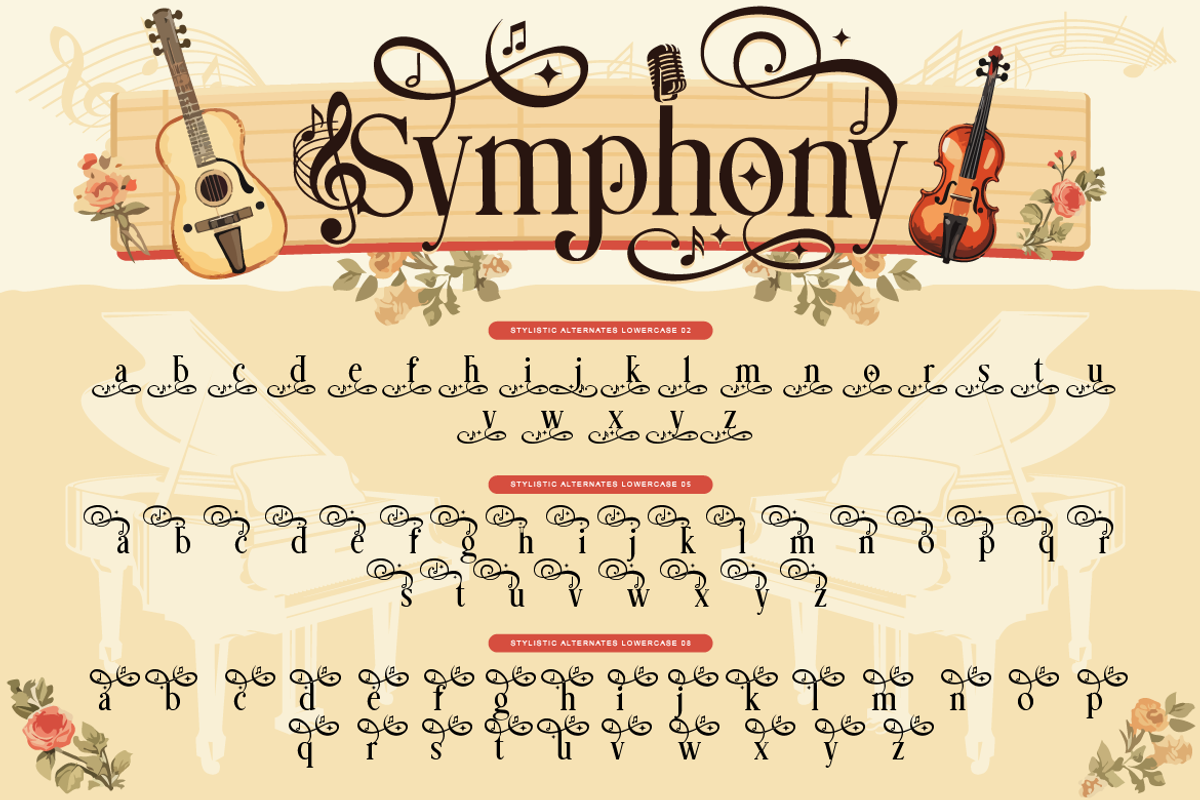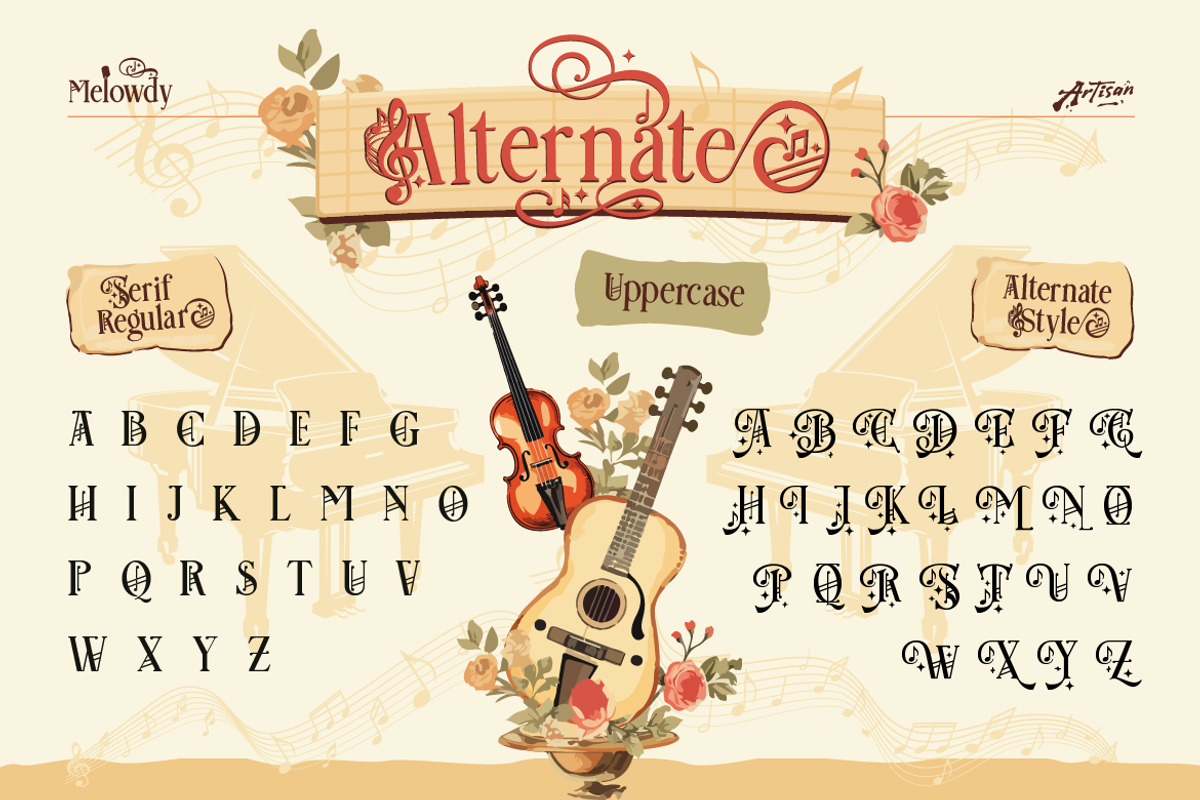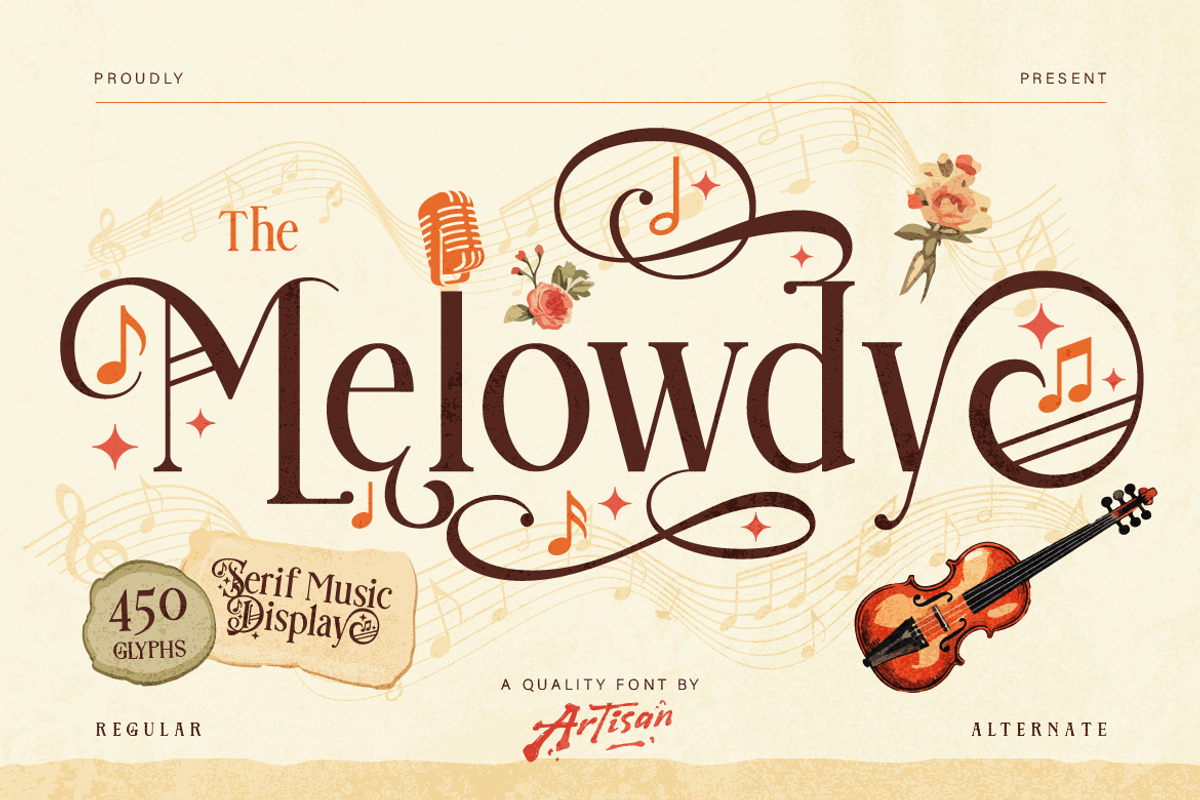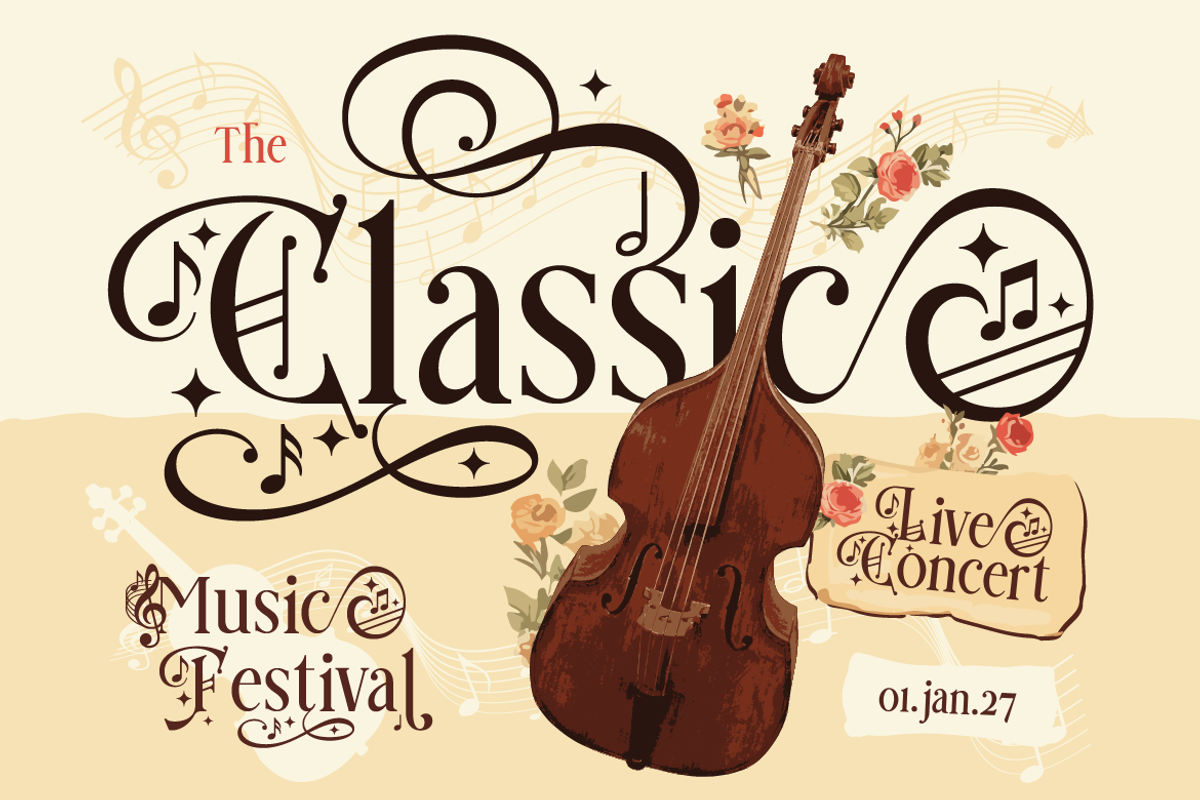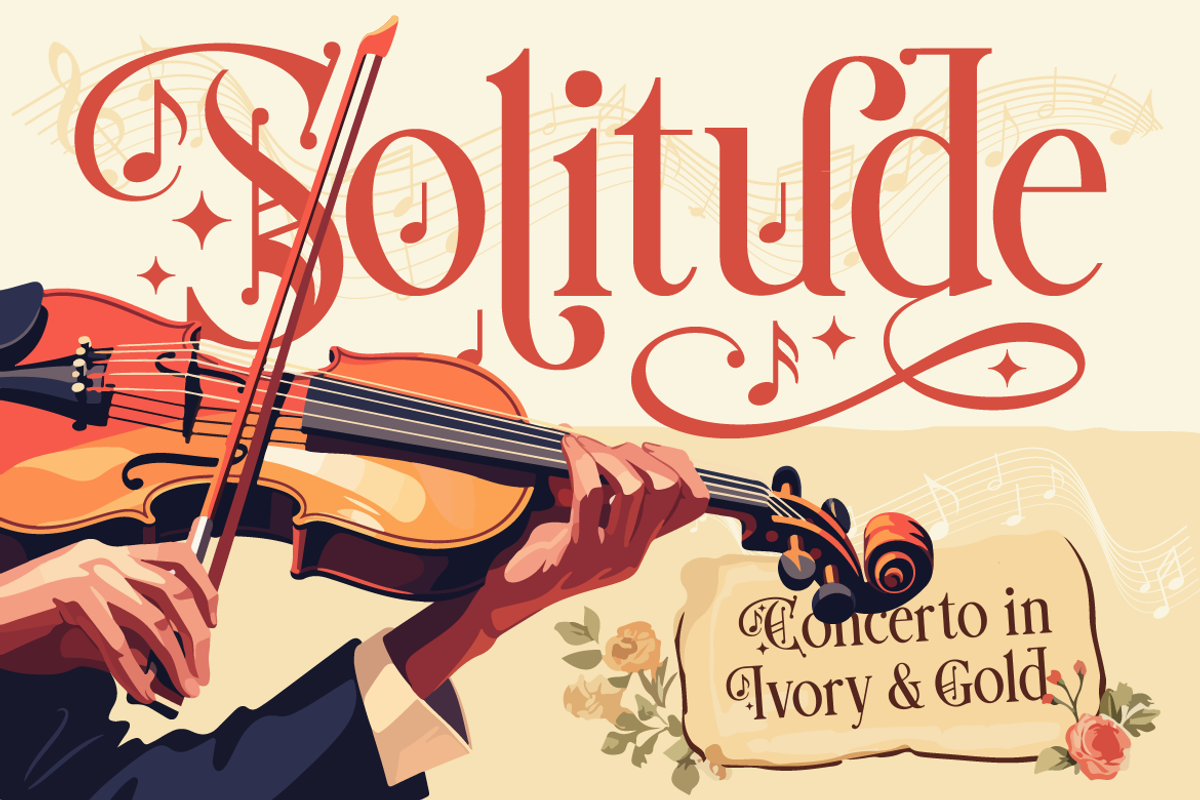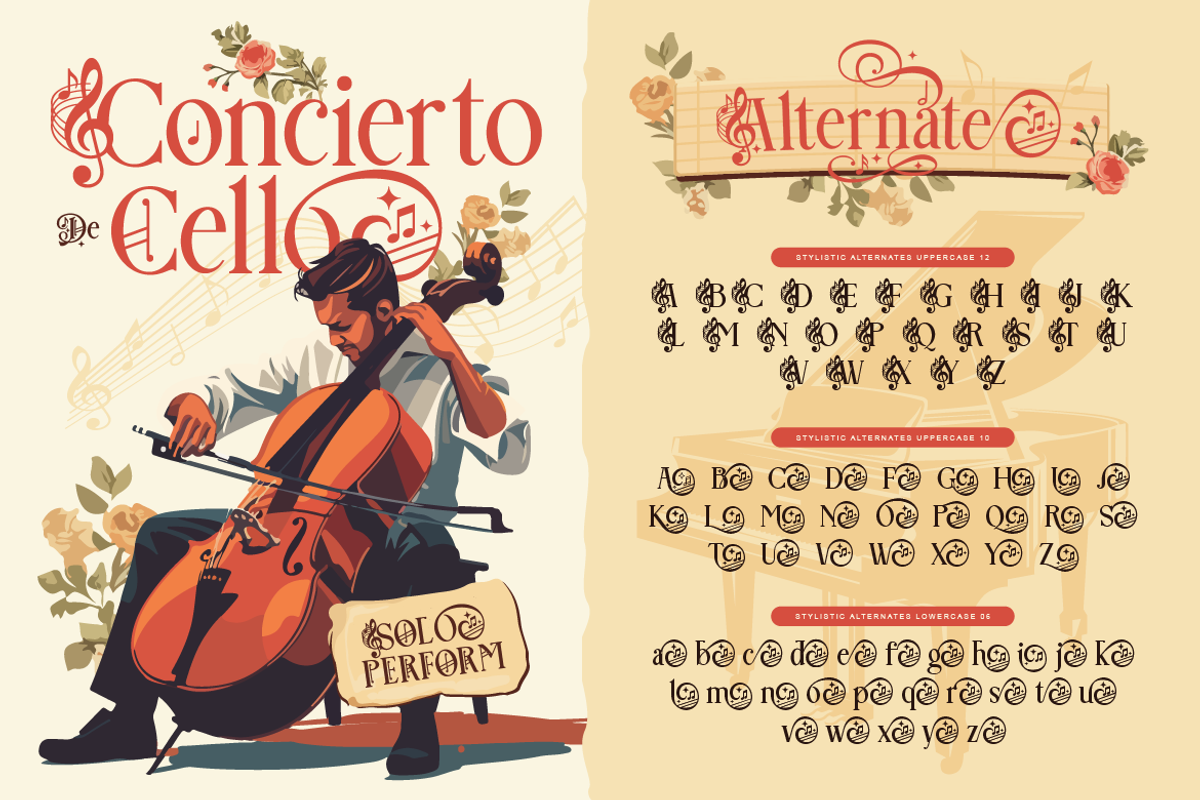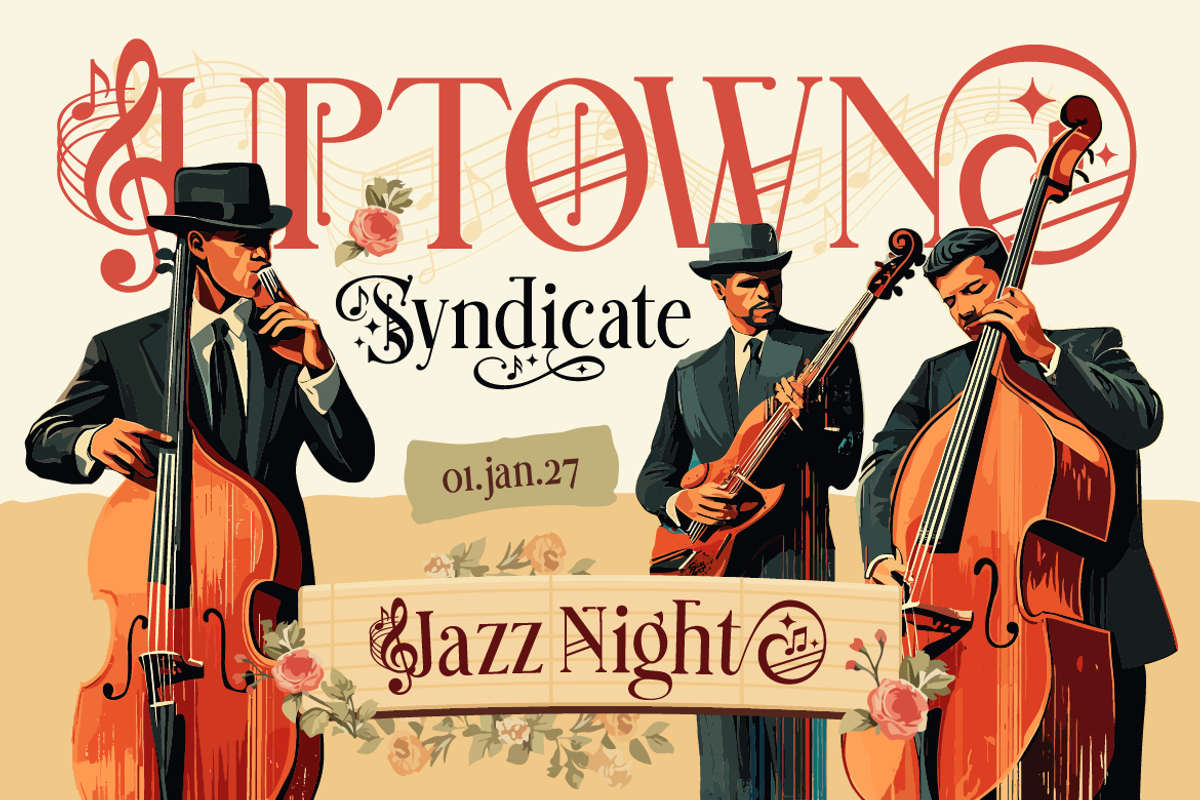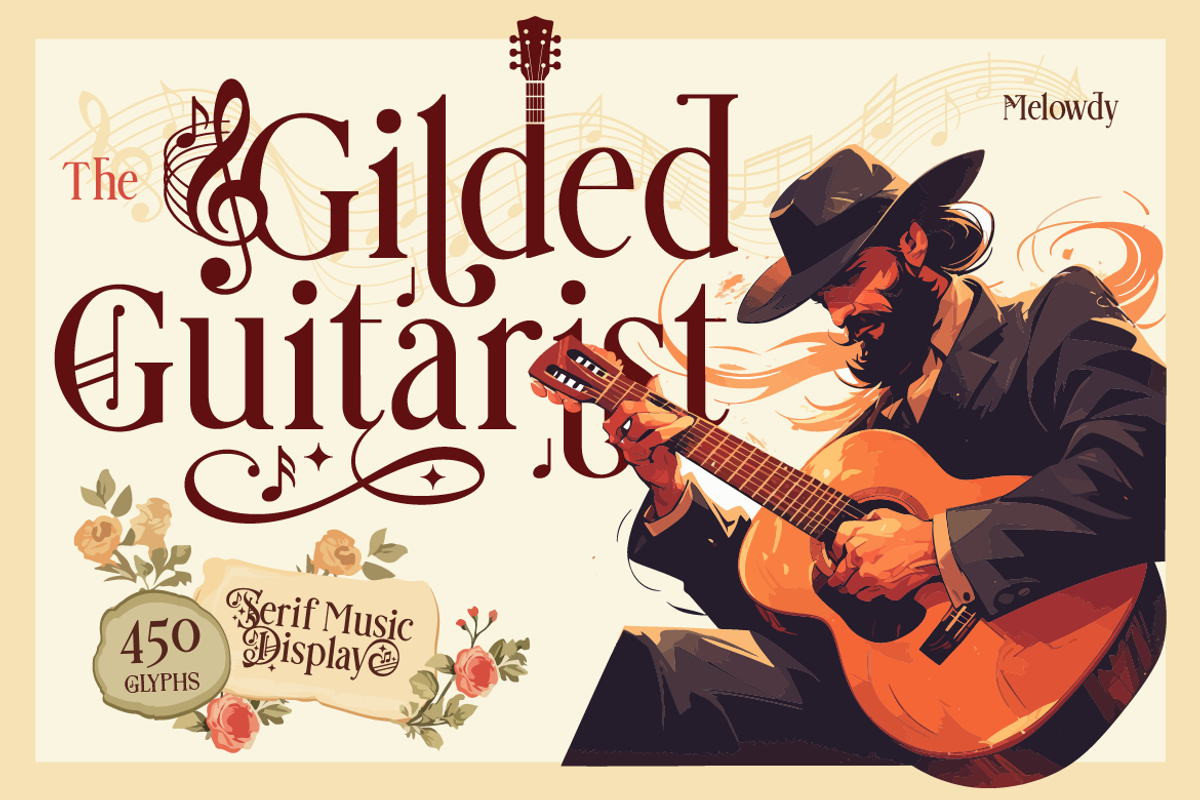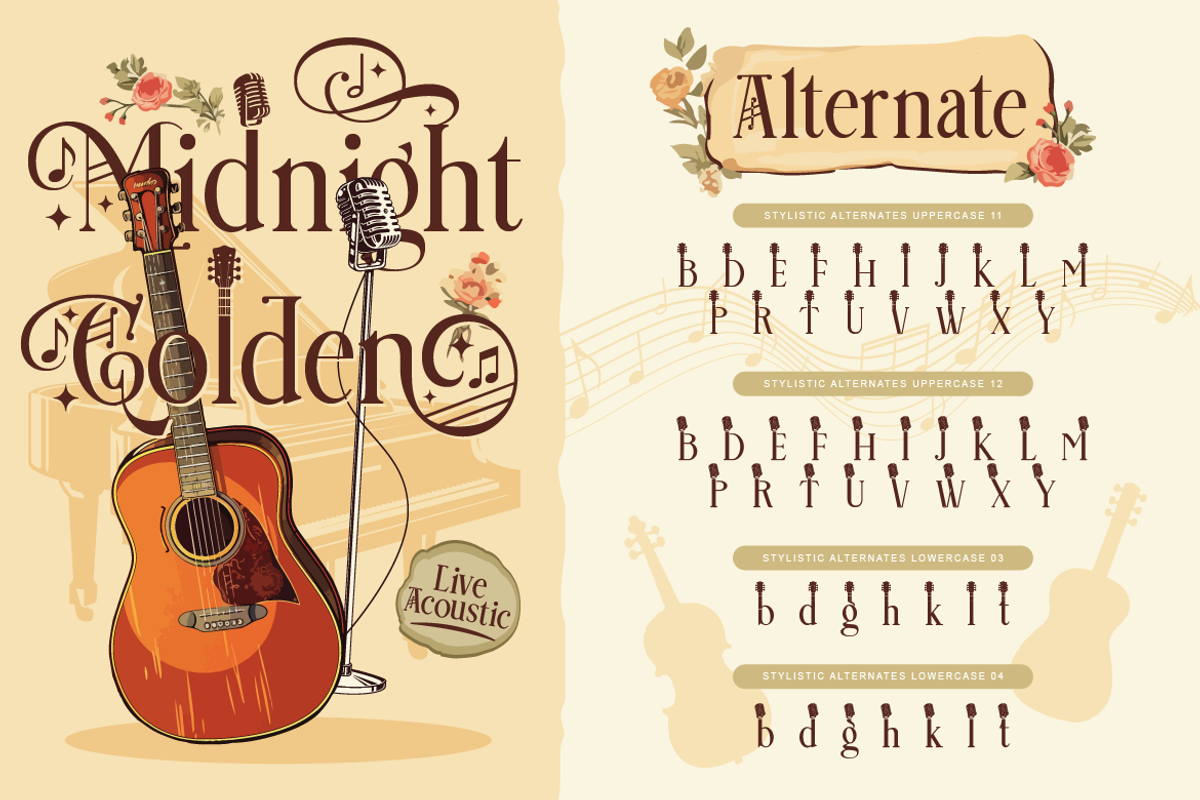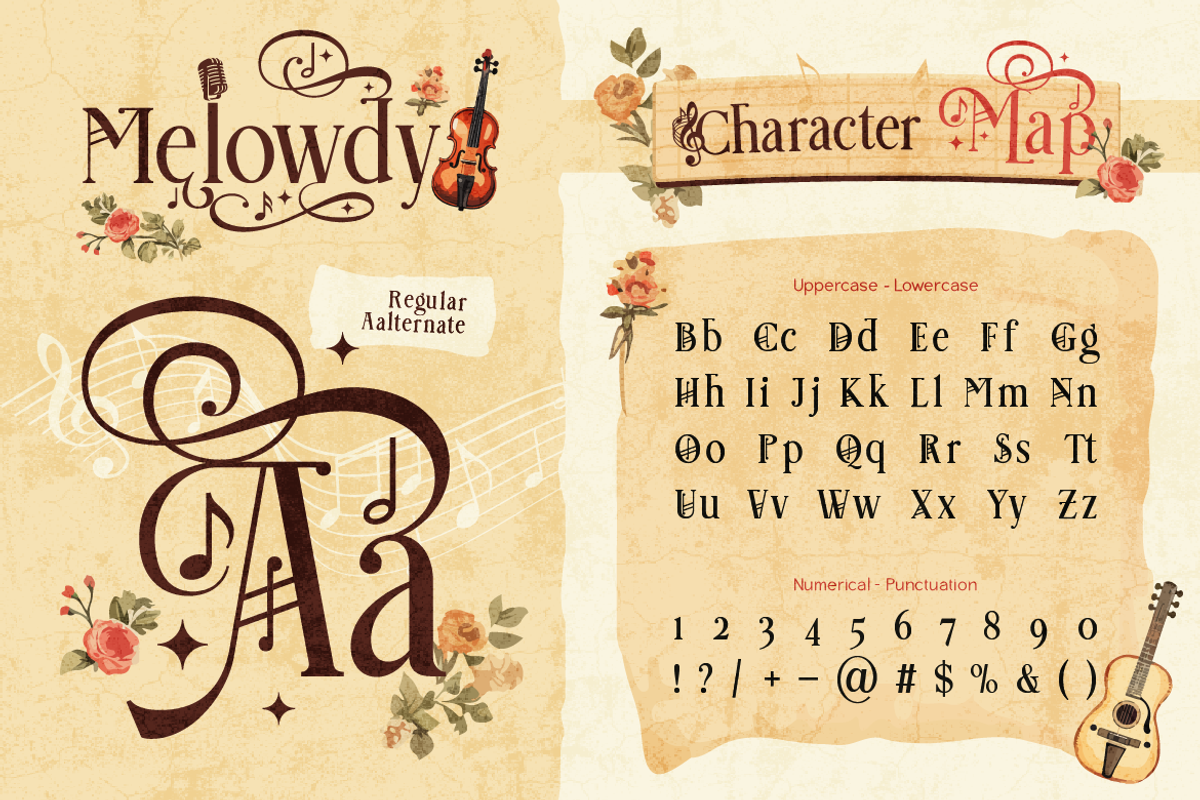
Melowdy
There’s something magical about music, soft melodies, vintage jazz nights, and timeless performances that stay in your memory. Melowdy captures that feeling and turns it into a beautifully crafted serif display font with a musical soul. Designed with elegant curves and artistic swashes, Melowdy blends classic serif structure with decorative musical elements, making it perfect for designs that need both sophistication and personality. From subtle note accents to expressive alternates, every detail is created to bring rhythm into your typography. This font comes with a rich set of 450 glyphs, including stunning alternates that let you create unique, eye-catching compositions effortlessly. Whether you want a clean serif look or a more ornamental style, Melowdy gives you the flexibility to explore both.
- Music event posters (jazz night, concert, festival)
- Vintage and retro-themed branding
- Album covers & merch design
- Café, bar, or lounge identity
- Wedding invitations with artistic flair
- Editorial headlines & creative typography projects